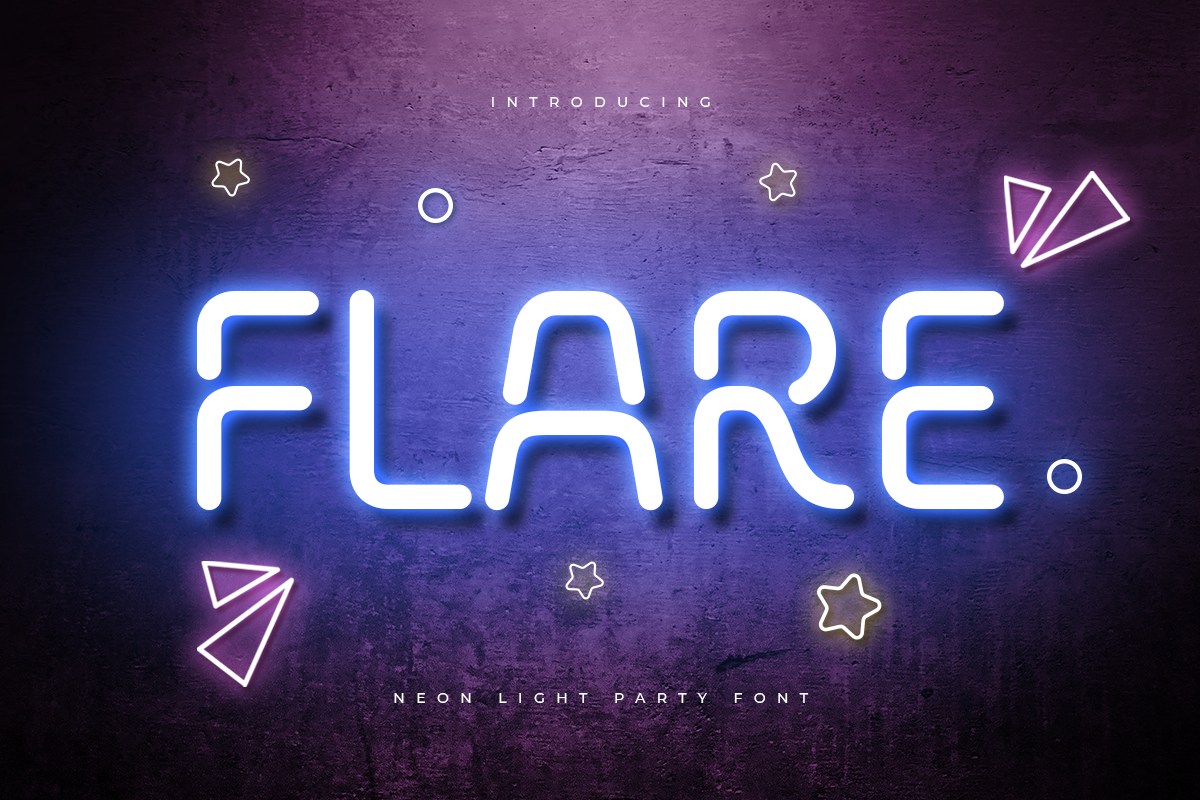
Flare - Neon Light Party Font
Electrify your designs with Flare - a striking neon light party font featuring floating shapes for unique modern appeal. This distinctive display font is specially crafted for headlines, titles, and standout typography that demands attention. The unique floating shape design combined with neon aesthetics creates the perfect balance of modern style and eye-catching impact for any project that needs to showcase your main concept boldly. Flare Neon Light Party Font includes: Creative variations wit...